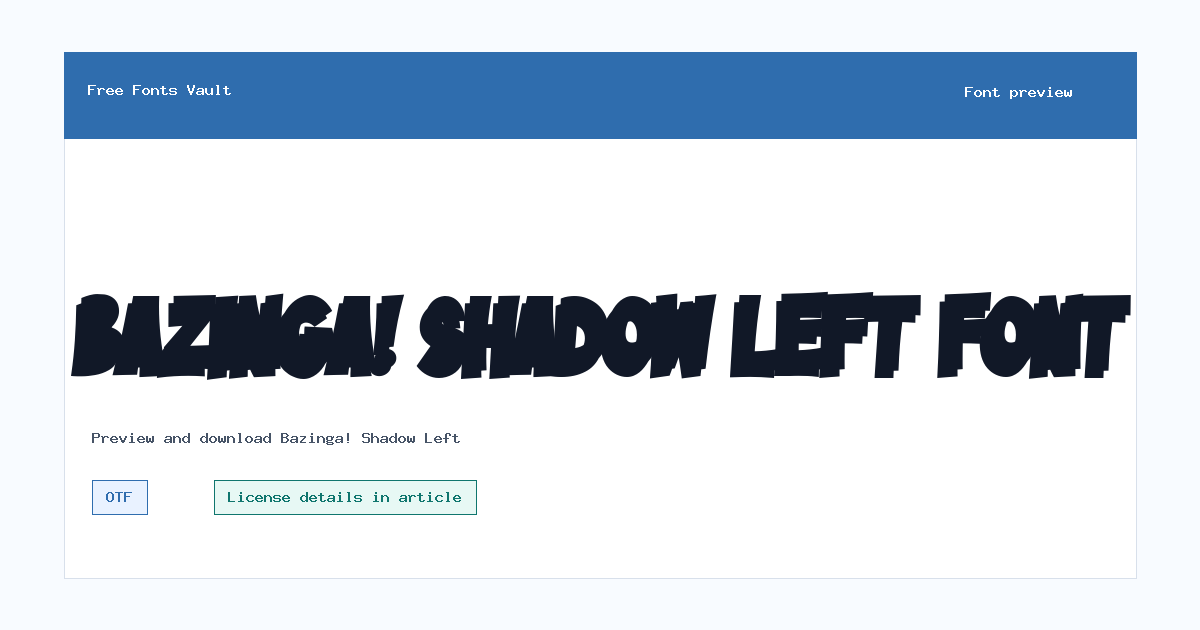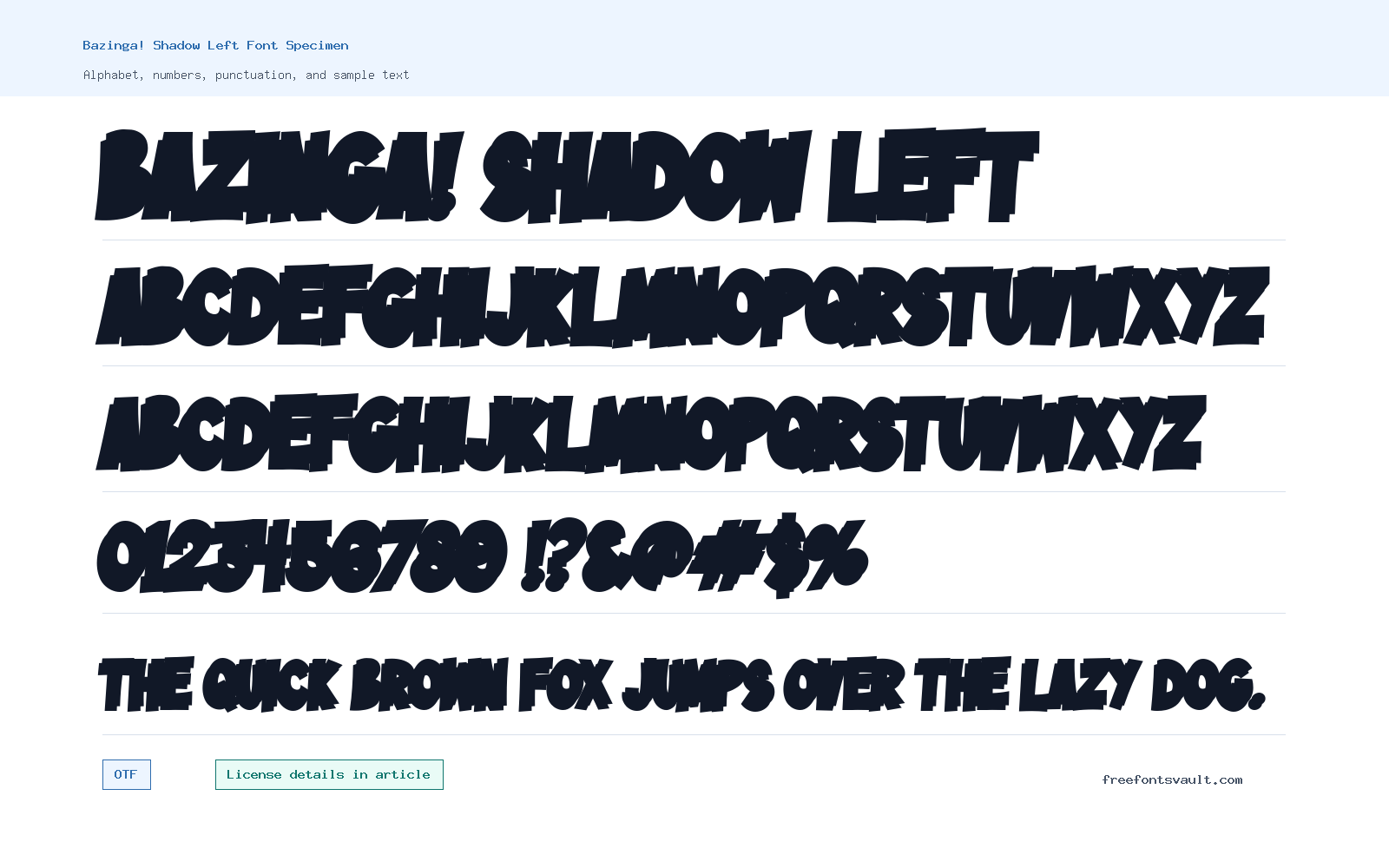
Bazinga! Shadow Left
- Designer Ferry Ardana Putra
- Foundry Ferry Ardana Putra
Bazinga! Shadow Left font.
Bazinga! Shadow Left is a display font built for bold, playful text where the lettering needs more presence than a plain outline or regular sans style.
About Bazinga! Shadow Left
Bazinga! Shadow Left uses a decorative shadow treatment that gives words a layered, dimensional look. The shadow direction is part of the font’s identity, so it works best when the text is short enough for that effect to stay clear. Try it for titles, stickers, poster words, social graphics, thumbnails, party labels, game-style captions, or any design where a single phrase needs to stand out. Because the family name includes “Bazinga,” avoid presenting it as connected to any show, brand, character, or trademark unless you have separate permission or evidence for that use.
- Decorative display lettering with a left-shadow look for short, attention-grabbing text.
- Posters, stickers, social media graphics, thumbnails, labels, and fun headline designs.
- Short phrases, names, event text, and decorative titles where a shadow effect helps the words pop.
Bazinga! Shadow Left is credited to Ferry Ardana Putra, with the same name listed as the foundry credit.
Use this font at larger sizes and keep the wording short. Check spacing in the preview before downloading, because shadow-style letters often need extra room around them. For better readability, use strong contrast between the text and background, avoid heavy textures behind the words, and pair it with a quieter font for body text, captions, or details.
What kind of designs suit this font?
It suits short display text such as posters, social posts, playful headings, stickers, party graphics, and thumbnail titles. It is not a good choice for long paragraphs or small body text.
How should I pair Bazinga! Shadow Left?
Pair it with a simple sans serif or plain serif. Let Bazinga! Shadow Left carry the main title, then use the simpler font for dates, descriptions, buttons, and longer reading text.